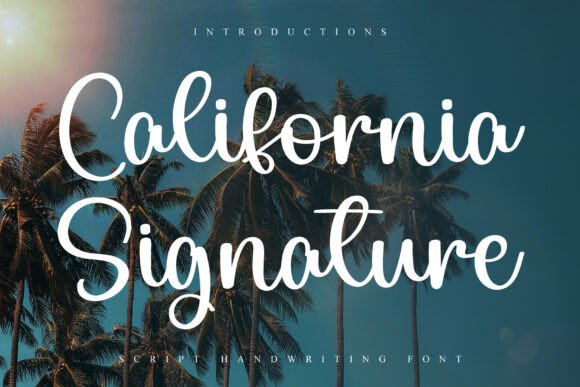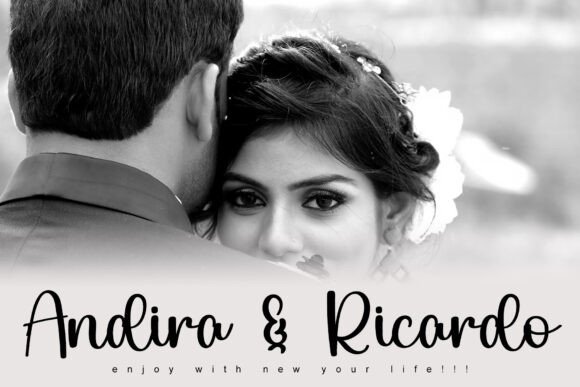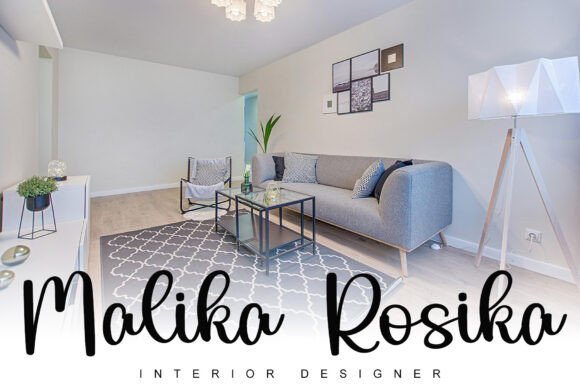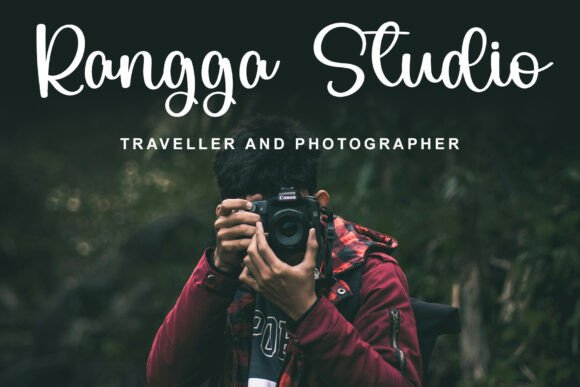
California Signature Font: Chic Script for Wedding Branding
About the California Signature Font
Explore the possibilities with California Signature Font, a font that offers both beauty and functionality. California Signature is a festive and playful typeface adorned with enchanting swashes. Perfect for adding a touch of holiday magic to your Christmas cards, decorations, and more. Spread the joy of the season with this whimsical font.
California Signature thrives in applications requiring a lighthearted and celebratory feel. It excels in short headlines, logos for businesses with a playful brand identity (e.g., bakeries, boutiques, children’s products), and festive packaging designs. Avoid using it for body text or lengthy paragraphs; its decorative nature compromises readability at smaller sizes.
This font pairs well with clean sans-serif fonts like Open Sans or Lato for a balanced contrast, or a classic serif like Garamond or Playfair Display for a more traditional yet still inviting feel. A simple geometric sans-serif could also provide a modern counterpoint.
Its core personality is undeniably playful and festive, making it unsuitable for projects requiring a serious or corporate tone.
California Signature Font Usage Examples
California Signature Font Example